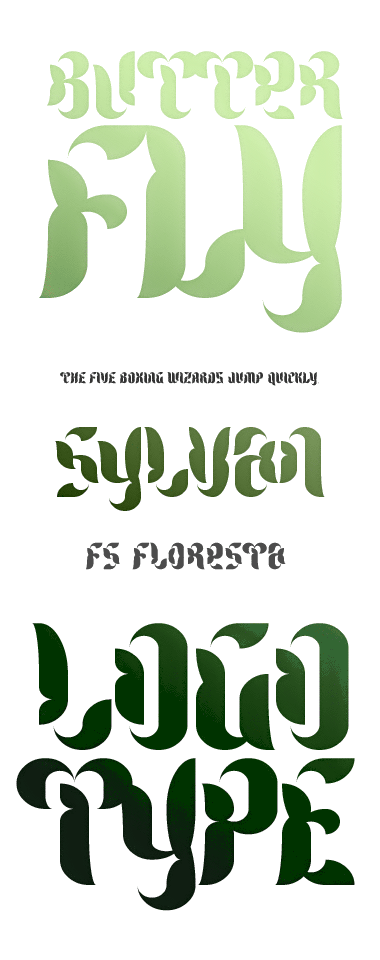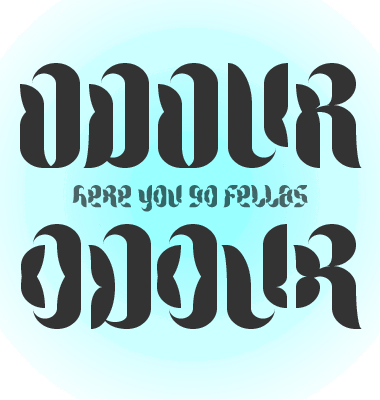
sylvan - Wiktionary (sums up it perfectly!)
(I never would have thought of a use for the fin+1/4 circle shape that's used in places like Q's tail, but you've done it, and done it brilliantly :) )
@djnippa: Excellent critique of the V. I’ve revised both variants for legibility and updated the sample. This is definitely a display face, however improvements to legibility (and expansion of the character set) could be explored further. I appreciate your keen constructive criticism and welcome any suggestions for improvement.
@Umbreon126: Thanks for the link! The q solution you describe occurred to me outside of the fontstructor while I was playing with samples. I was taken aback by it for a moment, and then it seemed almost obvious. So I decided to keep it. I like how the same configuration of bricks – mirrored across the baseline – is used to terminate characters like s and e. Thanks for digging into the details!
That's a great solution for the new V. Nicely done, and the new sample is much clearer.
Do you think the lowercase D is perhaps too similar to the lowercase O? I realise it's an alternative, but I think the capital D is far superior. This is how 'odour' reads.